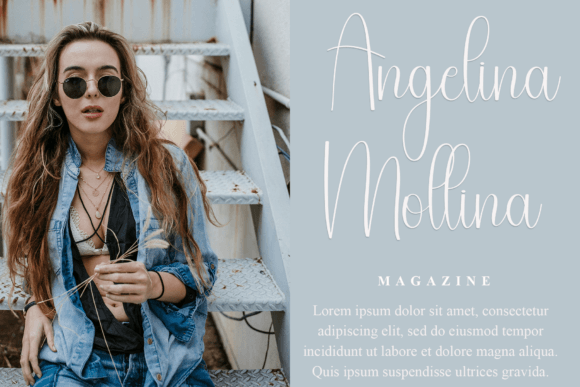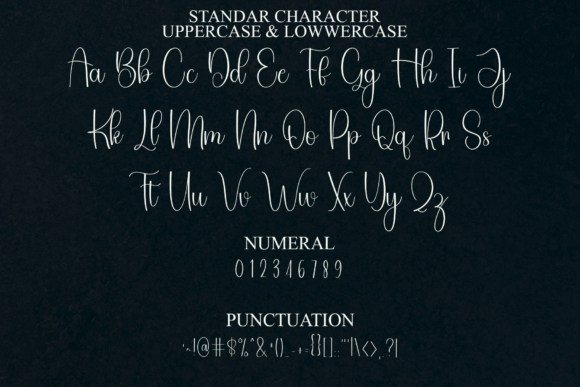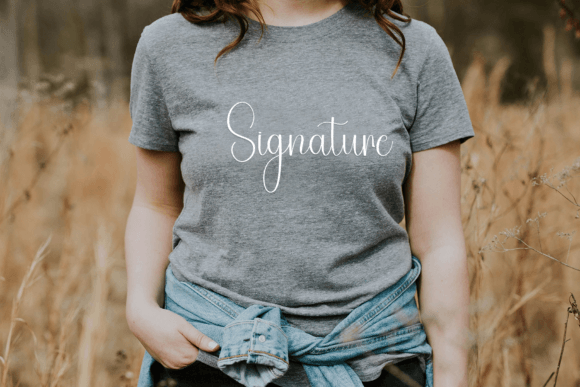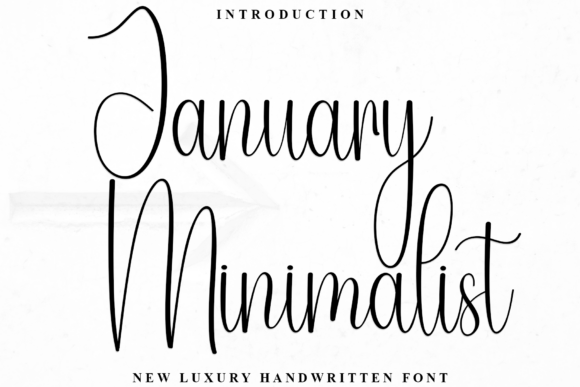
Introduction to January Minimalist Font
January Minimalist is a festive and merry typeface that captures the spirit of the holiday season.
With its decorative elements and whimsical flair, it adds a touch of enchantment to your designs Perfect for greeting cards, gift tags, and holiday-themed projects, this font brings a cheerful and nostalgic ambiance to your words.
January Minimalist Font offers exceptional quality and versatility, making it a valuable addition to your design toolkit. Whether you’re creating for personal projects or commercial use, January Minimalist Font delivers professional results.